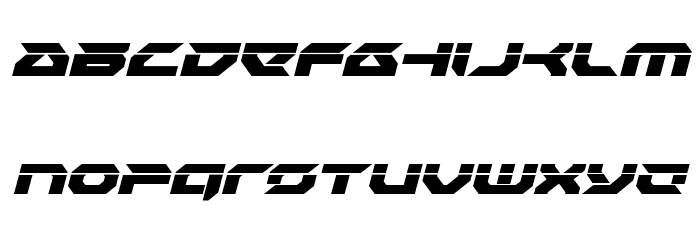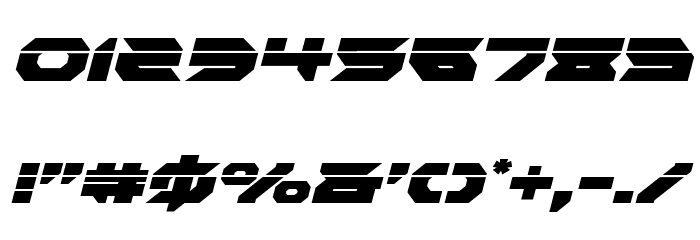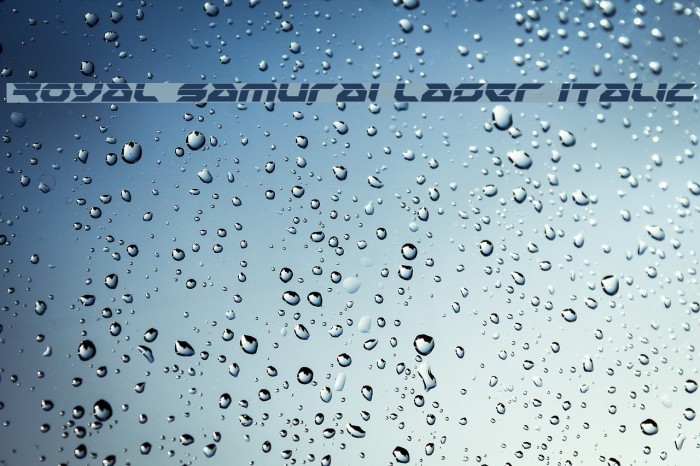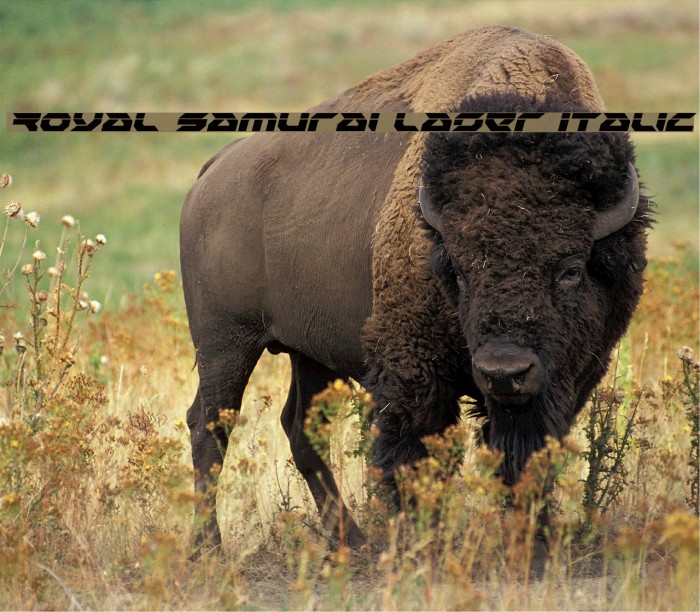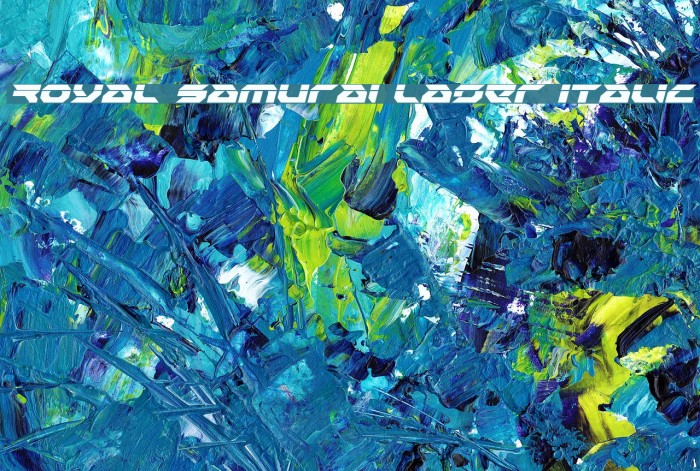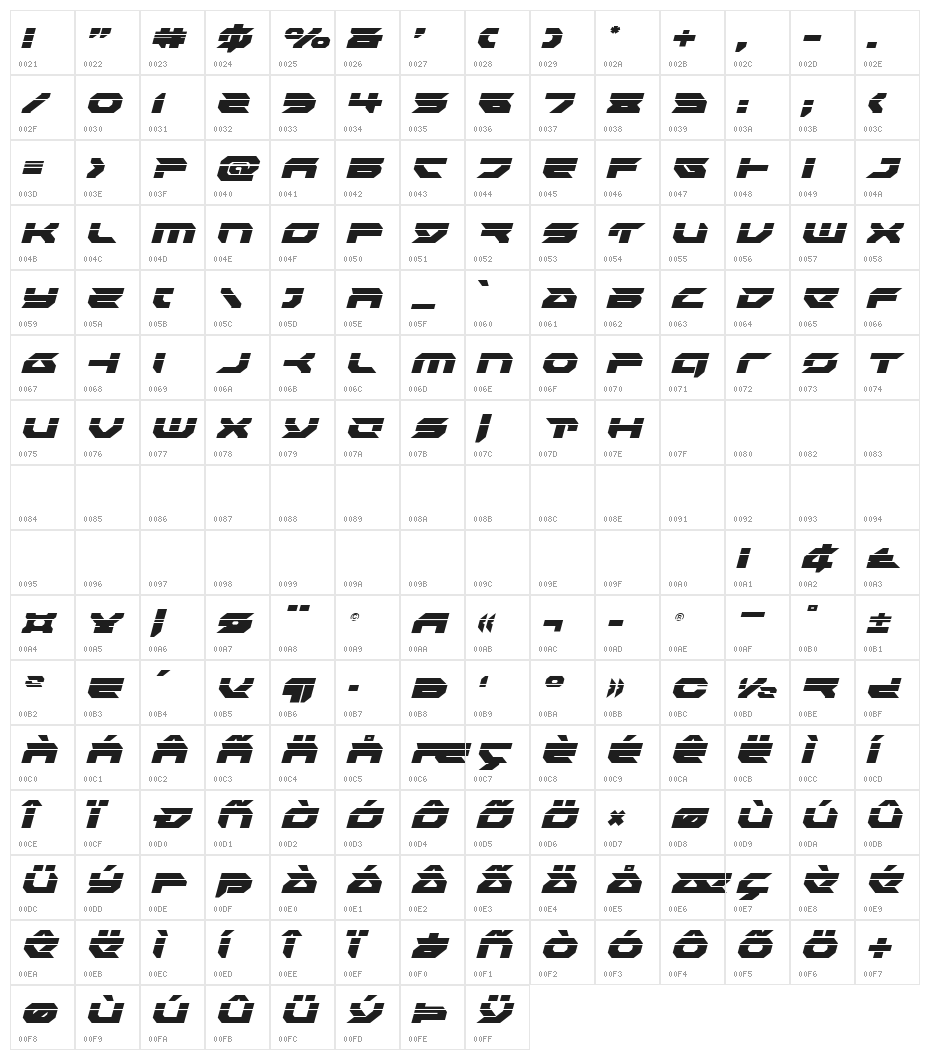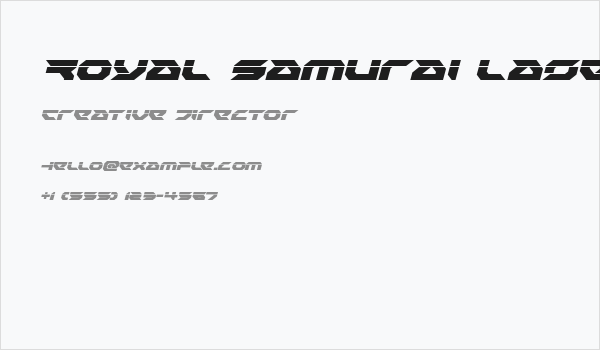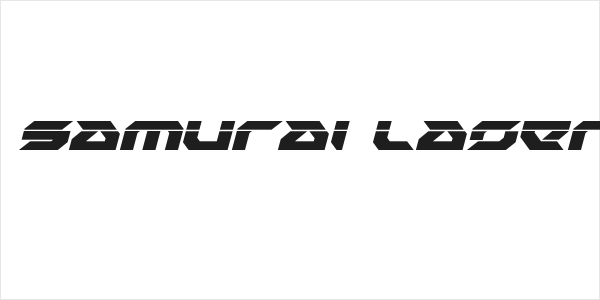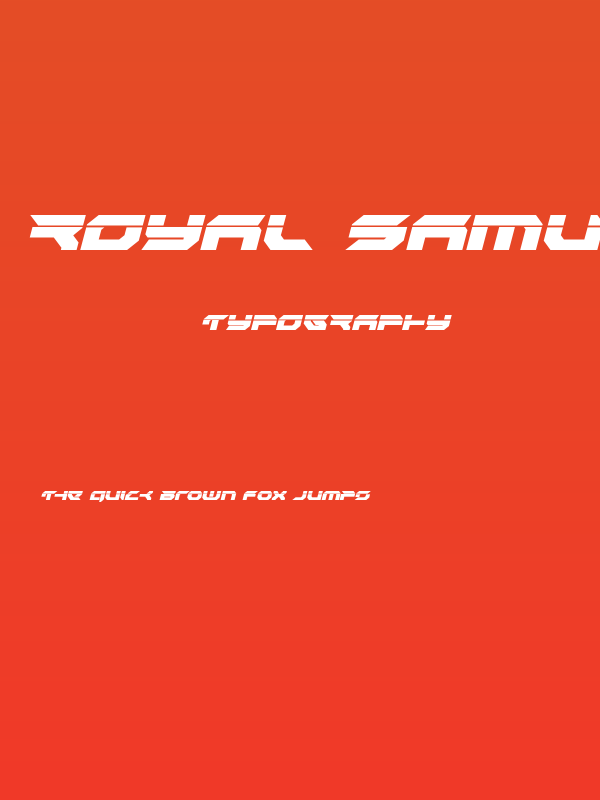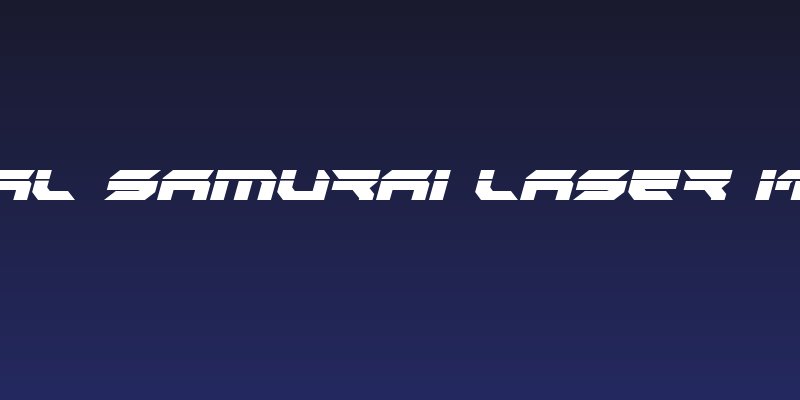
Royal Samurai Laser Italic Font
This font features a bold, futuristic design with sharp, angular lines and a distinct geometric style. The characters are crafted with a laser-cut appearance, giving them a sleek and modern look. The italic slant adds a dynamic and energetic feel, making it ideal for projects that require a strong visual impact. The uppercase and lowercase letters maintain a consistent style, with unique cuts and angles that enhance the overall aesthetic. The numbers and special characters are designed to match the bold and edgy theme, ensuring a cohesive look across all text elements.
A bold, futuristic font with sharp, angular lines and a laser-cut style.
- Proposed Projects: Ideal for sci-fi themed designs, video game graphics, tech branding, and futuristic posters.
- Overall Style: Futuristic